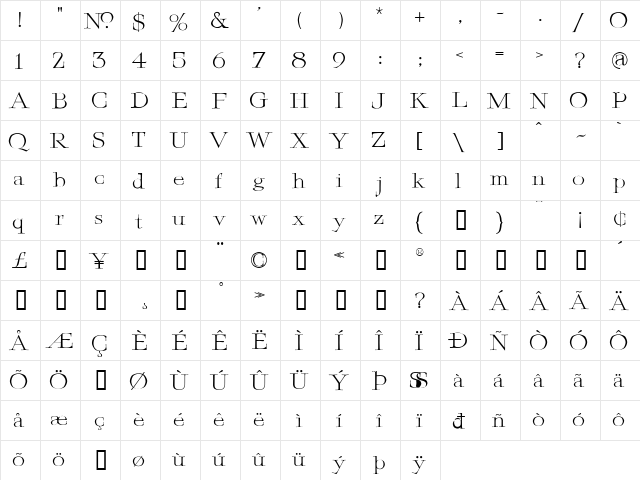
LHF Fineline Roman BETA Regular
Design Context for LHF Fineline Roman BETA Typeface
LHF Fineline Roman BETA takes a measured approach to typography — its balanced proportions and neutral character make it a reliable workhorse for both digital and print work.